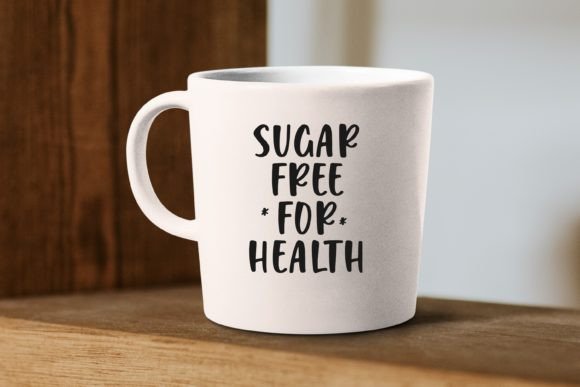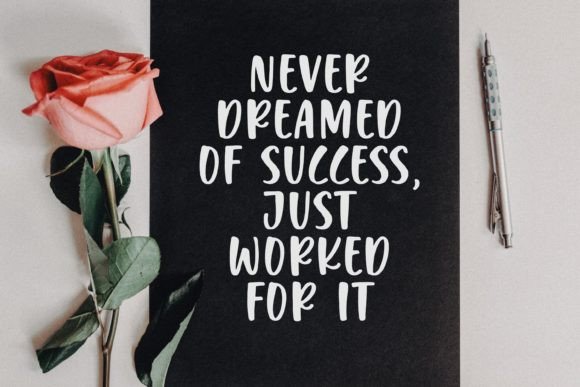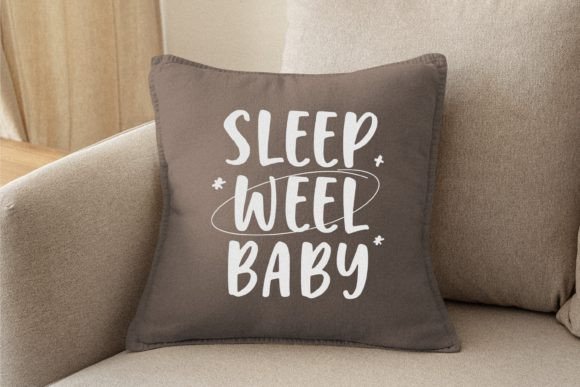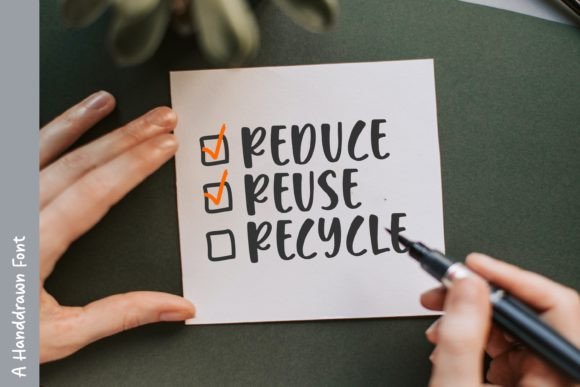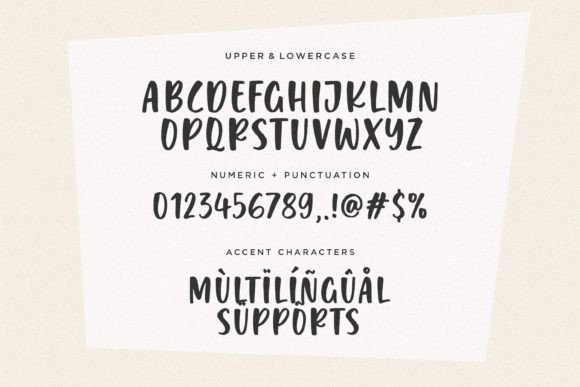
Introduction to Raspberry Candy Font
As you sit at your desk, staring blankly at your computer screen, you get that sudden burst of inspiration. A creative project is brewing in your mind, and you can’t wait to bring it to life. You start brainstorming ideas, sketching out rough drafts, and searching for the perfect design resource to tie everything together. That’s where the Raspberry Candy Font comes in – a sweet and friendly handwritten font that’s about to become your new best friend.
This versatile font is a game-changer for designers looking to add a touch of personality to their work. With its natural and unique style, the Raspberry Candy Font is incredibly fitting to a wide range of designs, from social media graphics to wedding invitations. Plus, its transparent background makes it easy to layer with other design elements, giving you endless possibilities for creativity. And the best part? It’s available for a free download, making it an invaluable resource for any designer looking to elevate their high-quality designs.
Raspberry Candy Font
- High-quality font designed for creative projects, perfect for adding a sweet touch to your designs.
- Features a transparent background, allowing for seamless integration into any design.
- Unique characteristics include swashes, flourishes, and ornaments, adding an extra layer of creativity to your designs.
- Perfect for use in graphic design, digital art, and typography projects, making it a valuable design resource.
Honest Review: Raspberry Candy Font
I recently came across the Raspberry Candy Font and was excited to give it a try. As a designer, I’m always on the lookout for unique and high-quality design resources to elevate my creative projects. In this review, I’ll share my honest thoughts on this font.
- ✨ Unique and playful design aesthetic that’s perfect for projects that need a touch of whimsy.
- ✨ High-quality vectors that can be scaled up or down without losing any detail.
- ✨ Transparent background, which allows for easy customization and integration with other design elements.
- ⚠️ Limited character set, which may not be suitable for longer texts or professional projects.
- ⚠️ Some letters may not be optimized for web use, which could lead to display issues.
Overall, I think the Raspberry Candy Font is a great addition to any designer’s toolkit. Its unique design and high-quality vectors make it an excellent choice for creative projects that need a touch of personality. While it may have some limitations, it’s a free download that’s definitely worth checking out.
Raspberry Candy Font
Getting the Most Out of Raspberry Candy Font
For a creative project, use Raspberry Candy Font to add a touch of whimsy and elegance. With a transparent background, it’s perfect for designing digital products, logos, or social media graphics.
Raspberry Candy Font is ideal for:
– Designing food-related products, such as labels or packaging
– Creating invitations or greeting cards
– Developing branding materials for bakeries or candy stores